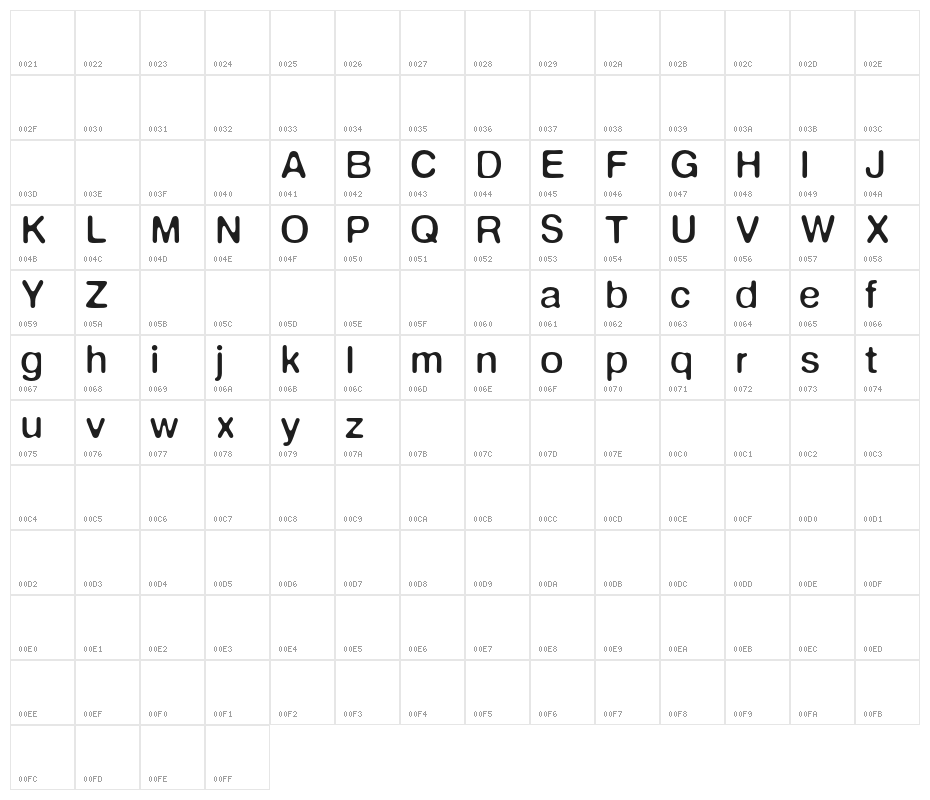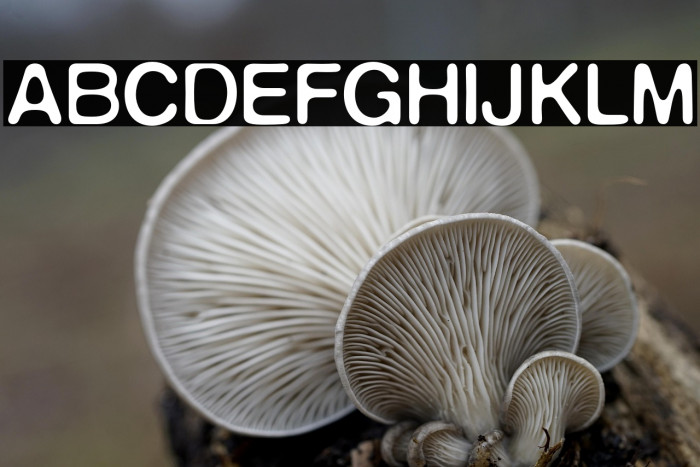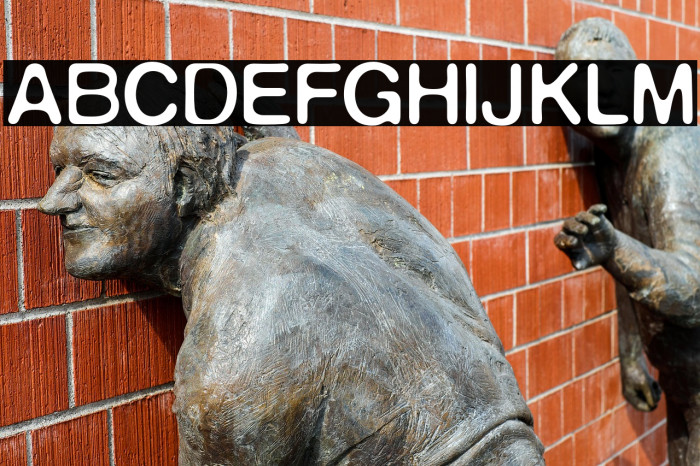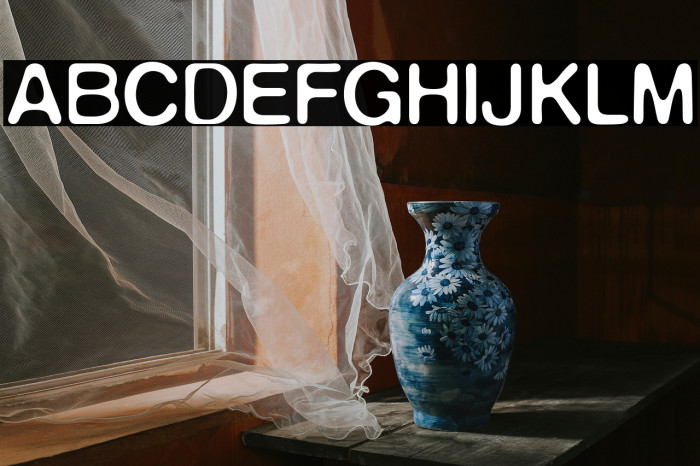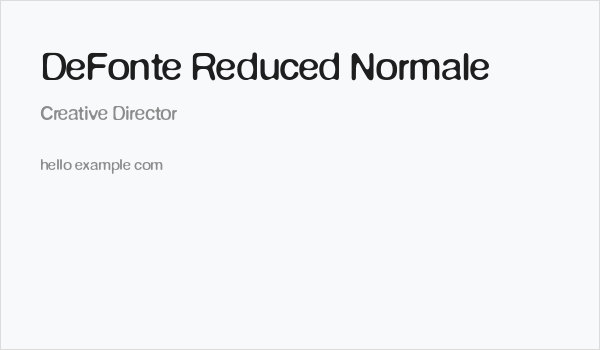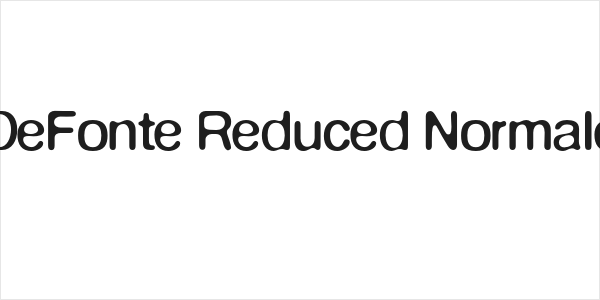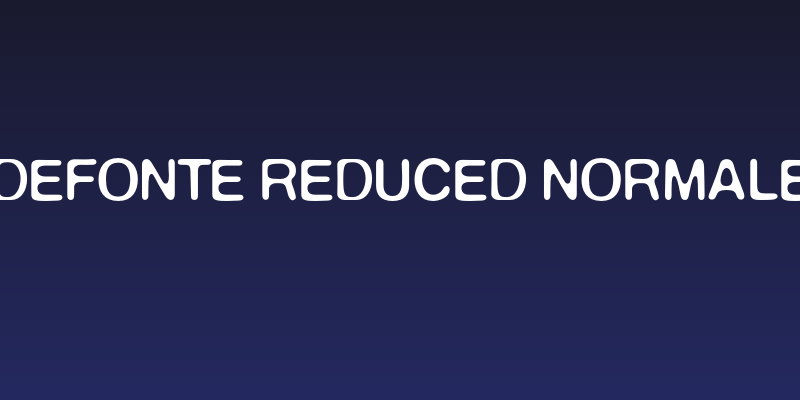
DeFonte Reduced Normale Font
DeFonte Reduced Normale Description
This font features a rounded, smooth appearance with uniform stroke widths, giving it a friendly and approachable feel. The characters are well-balanced, with consistent proportions and a slightly condensed structure. The rounded terminals and lack of sharp edges contribute to its modern and clean aesthetic. It maintains clarity and readability, making it suitable for various applications. The font's simplicity and uniformity make it versatile, while its rounded forms add a touch of warmth and personality.
| Proposed Projects | Ideal for branding, children's books, educational materials, and user interfaces where a friendly and approachable tone is desired. |